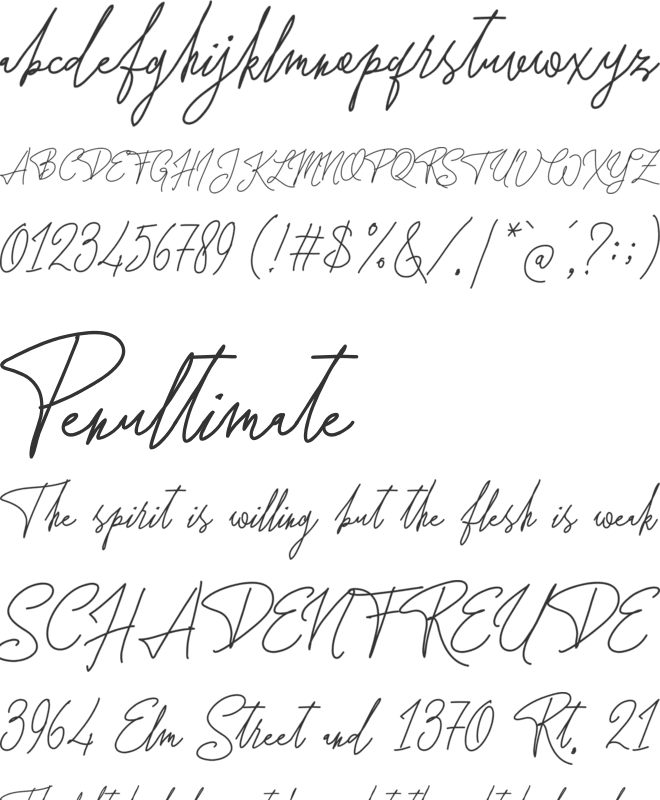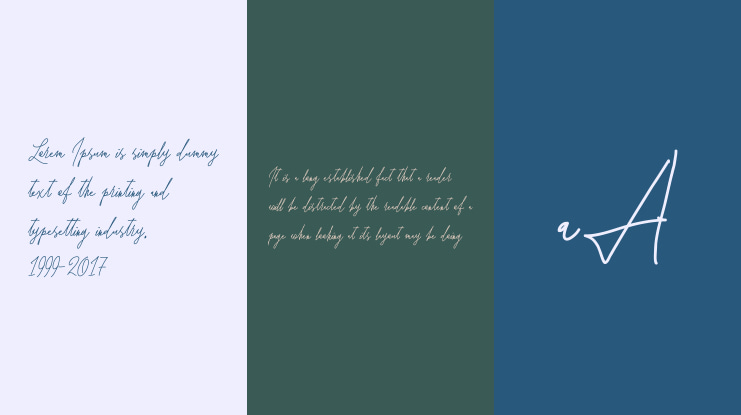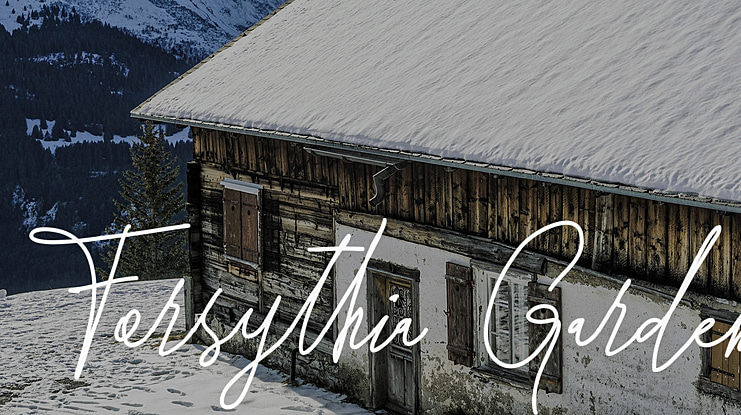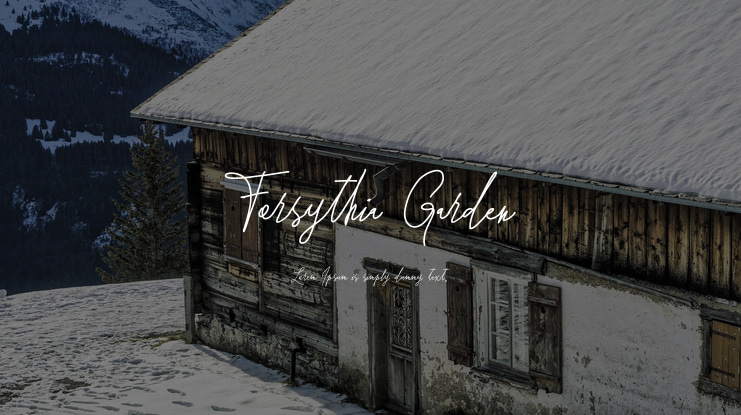
Forsythia Garden Font
NOTE: FREE FOR PERSONAL USE ONLY, COMMERCIAL USE REQUIRES DONATION. Introducing a new signature typeface, named as Forsythia Garden, a beautiful flower. This font, will nice for logo, title, subtitle, or text, for wedding invitation, t-shirt, mug, flyer, book, flyer, etc.
Font feature: - Contain 400 glyphs. - Supported to Latin and Eastern Europe characters - 71 lowercase alternate characters - 27 ligatures - PUA encoded font